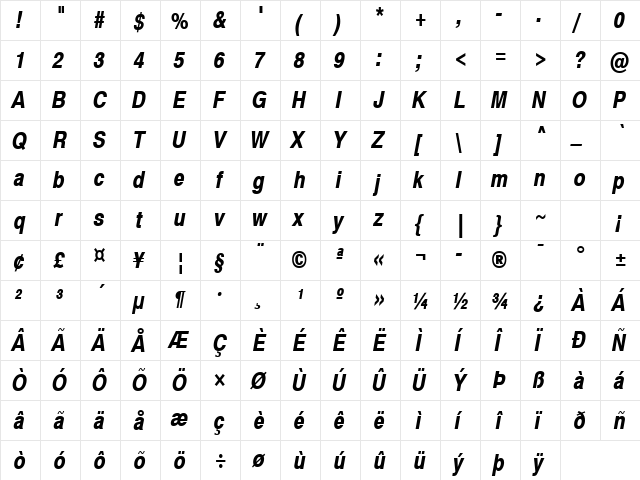
Swiss 721 Narrow SWA Bold Oblique Font Preview
Design Context for Swiss 721 Narrow SWA Typeface
Swiss 721 Narrow SWA offers clean, dependable letterforms without strong stylistic allegiance, making it a practical choice for designers who need flexibility. Its italic angle brings a sense of urgency and motion to the letterforms. Its bold stroke weight gives it real presence on the page. The condensed width makes it efficient for tight spaces without sacrificing legibility.
Pro Tip: Try Swiss 721 Narrow SWA for annotation and caption copy alongside an upright companion — the contrast in angle creates a dynamic but ordered typographic system.